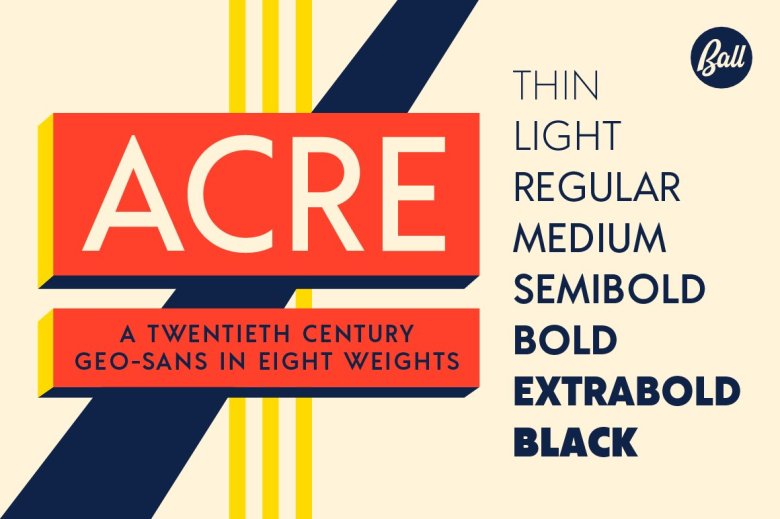
Acre Font Family
Acre is a sans-serif font family, designed by Jonathan Ball, a professional designer. Acre is a geometric typeface, it includes 8 weights. With eight weights ranging from Thin to Black, Acre is an extremely versatile family that can be used for display, text, or anything in between. Acre offers full European language support plus many OpenType features such as tabular and oldstyle figures.